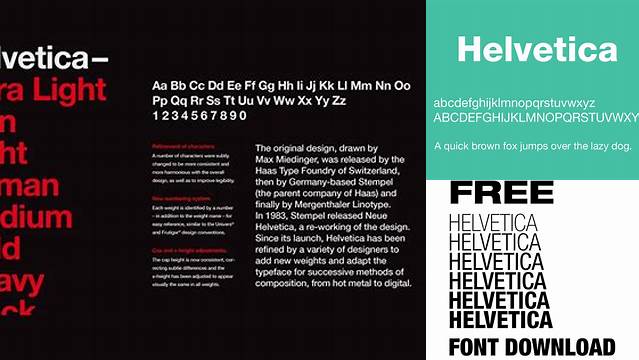
Hey everyone! Are you looking for the iconic Helvetica font? Well, you're in the right place! This guide will walk you through everything you need to know about a Helvetica font family free download, including where to find it, how to use it, and some cool tips and tricks. Let's dive in and get you set up with this classic typeface, shall we? You know, the Helvetica font family free download is a super popular choice for designers, and for good reason. It's clean, versatile, and looks great in pretty much any design project. From websites to logos to print materials, Helvetica just works. I will give you a detailed explanation and also provide you with several recommendations.
H3: Top Alternatives for a Free Helvetica-Style Font
Alright, let's talk about some of the best alternatives to the official Helvetica font. Since we are looking for a Helvetica font family free download, knowing what is available is essential. These fonts are designed to mimic the Helvetica aesthetic, and the best part is they are completely free to use. One of the top contenders is Arial. Arial is one of the most widely used fonts, and for a good reason. It's a sans-serif font that shares many characteristics with Helvetica. While not an exact copy, it is very similar. It's clean, modern, and highly readable, making it a fantastic choice for both body text and headlines. You can easily find Arial pre-installed on most computers, so it's ready to go. Next up, we have Nimbus Sans. This font is another excellent alternative to Helvetica. It's a clean, straightforward sans-serif font that is often used in professional designs. Nimbus Sans is known for its versatility and is a solid choice for a wide range of projects. You can easily download Nimbus Sans for free. Another option to consider is FreeSans. While FreeSans might not be a direct Helvetica clone, it still shares many of the same characteristics, like being a clear and functional font for various projects. Make sure you check out these alternatives when looking for a Helvetica font family free download option.